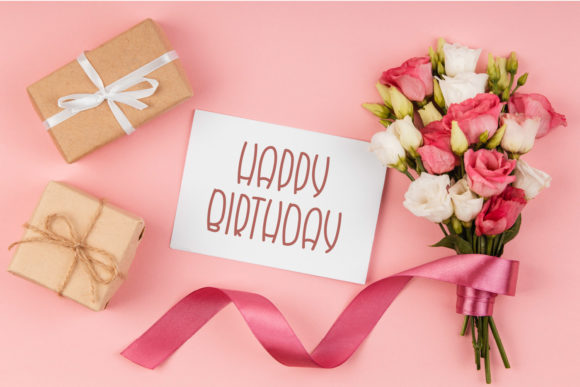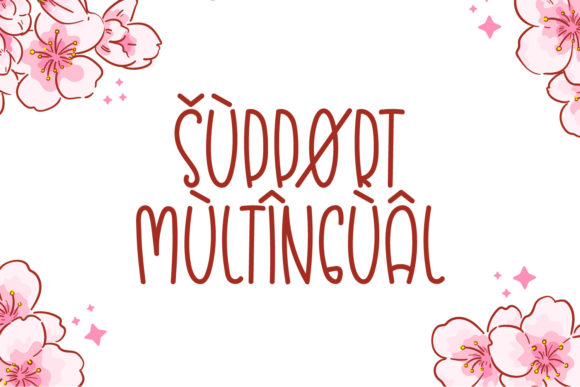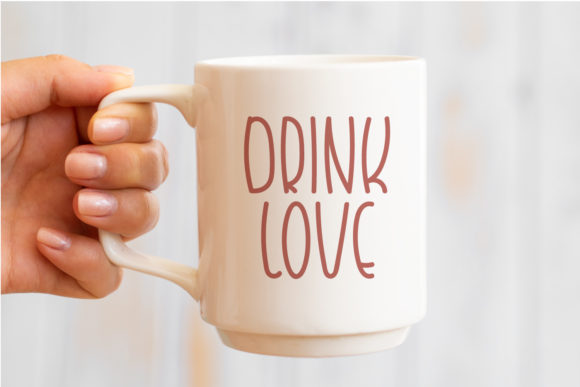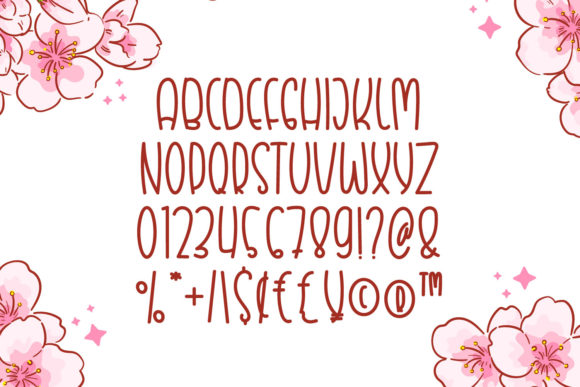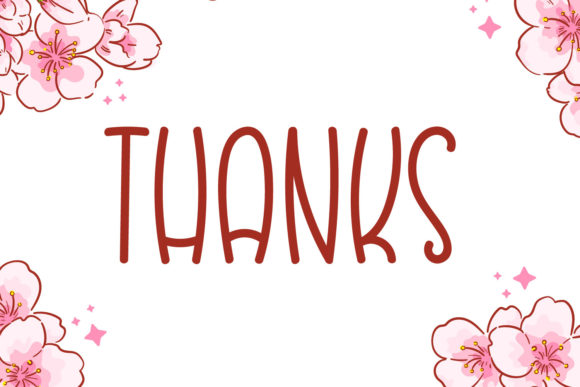
Introducing Blossom Font: The Cute and Simple Display Font to Brighten Up Your Designs
Are you tired of using the same old fonts in your designs? Do you want to add a touch of whimsy and quirkiness to your projects? Look no further than Blossom Font, a delightful and simple display font that’s sure to bring a smile to your face. In this article, we’ll take a closer look at Blossom Font, its features, and how you can use it to elevate your designs.
What is Blossom Font?
Blossom Font is a cute and simple display font that’s perfect for designers and crafters looking for a unique and eye-catching font. Its whimsical and quirky design makes it ideal for a variety of projects, from branding and advertising to packaging and digital media. With its clean and elegant lines, Blossom Font is sure to add a touch of sophistication to your designs.
Key Features of Blossom Font
• Cute and Simple Design: Blossom Font features a simple yet adorable design that’s perfect for a variety of projects.
• Whimsical and Quirky: The font’s whimsical and quirky design makes it stand out from more traditional fonts.
• Display Font: Blossom Font is a display font, making it perfect for headlines, titles, and other display text.
• Elegant Lines: The font features clean and elegant lines that add a touch of sophistication to your designs.
How to Use Blossom Font in Your Designs
Blossom Font is a versatile font that can be used in a variety of projects, including:
• Branding and Advertising: Use Blossom Font to create eye-catching logos, slogans, and ad copy that will grab attention and leave a lasting impression.
• Packaging Design: Add a touch of whimsy to your packaging designs with Blossom Font, perfect for product labels, tags, and packaging materials.
• Digital Media: Use Blossom Font to create engaging and interactive digital content, such as social media graphics, blog posts, and website headers.
• Crafting and Scrapbooking: Blossom Font is perfect for crafters and scrapbookers looking to add a personal touch to their projects.
Tips for Getting the Most Out of Blossom Font
Here are a few tips for getting the most out of Blossom Font:
• Use it as a Display Font: Blossom Font is designed to be used as a display font, so use it to create eye-catching headlines and titles.
• Experiment with Colors: Blossom Font looks great in a variety of colors, so don’t be afraid to experiment and find the perfect color scheme for your design.
• Pair it with Other Fonts: Blossom Font pairs well with a variety of other fonts, so try pairing it with a sans-serif font for a modern look or a script font for a more elegant feel.
Blossom Font is a delightful and simple display font that’s perfect for designers and crafters looking to add a touch of whimsy and quirkiness to their projects. With its cute and simple design, elegant lines, and versatile uses, Blossom Font is sure to brighten up each of your designs. So why not give it a try and see the results for yourself?